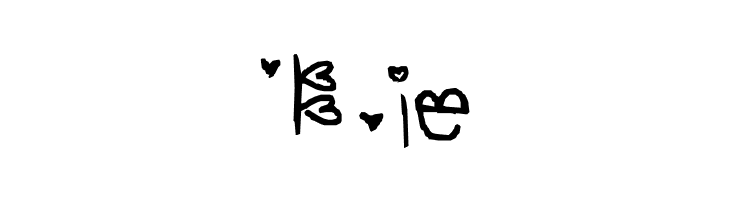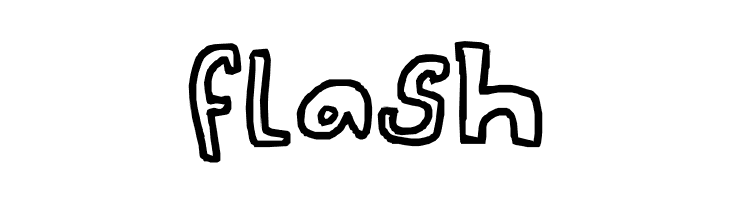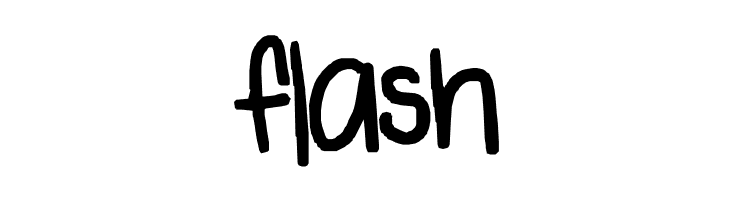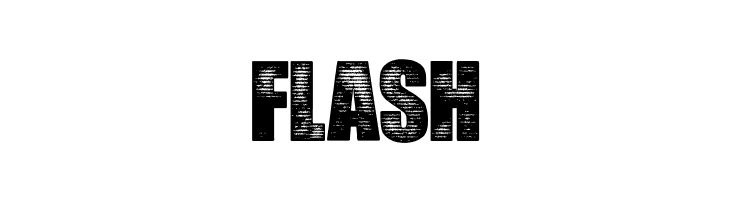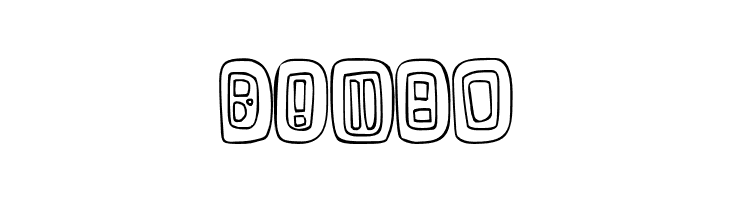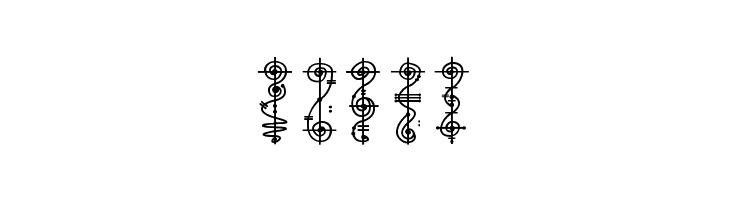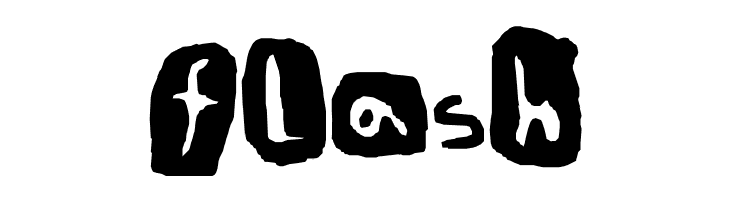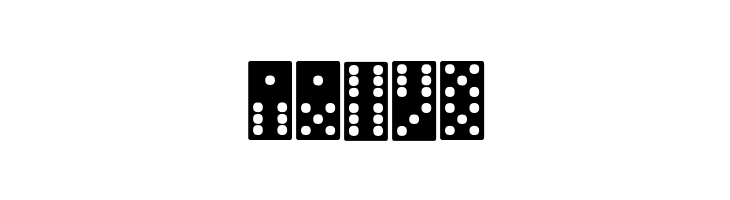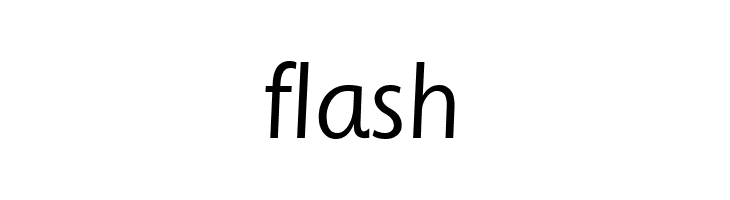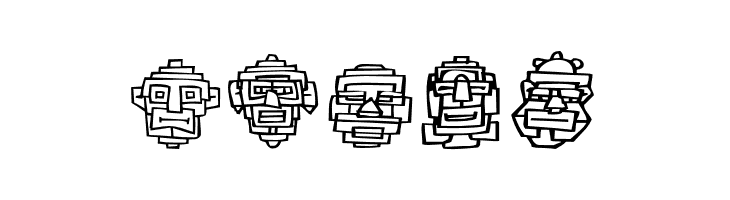
A futuristic, alien-like script with smooth curves and sharp angles, perfect for sci-fi themes.
A playful, abstract font with geometric shapes in rounded squares.
An intricate and decorative font with geometric and mystical designs.
Bold sans-serif font mimicking domino tiles with integrated dot motifs.
Abstract, geometric face illustrations form each character.
Cartoon animal pictogram font with bold, playful silhouettes.
Whimsical cartoon animal dingbat font.
A bold, angular font with a hand-drawn, artistic style.
A bold, playful font with a hand-drawn, dynamic style.
A rugged, distressed font with a hand-drawn, edgy style.
A bold, geometric font with a Greek-inspired design and double-line detailing.
A playful, hand-drawn font with bold, angular characters.
Bug-themed decorative font with each glyph resembling a different insect.
A decorative font with stylized illustrations of Indonesian women in traditional attire.
A decorative font with characters designed as diverse human faces, offering a playful and artistic style.
A playful, bold font with exaggerated curves and angles.